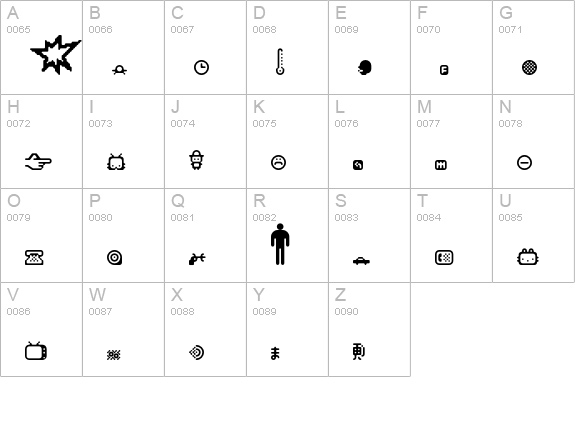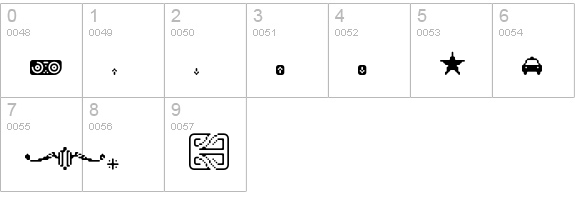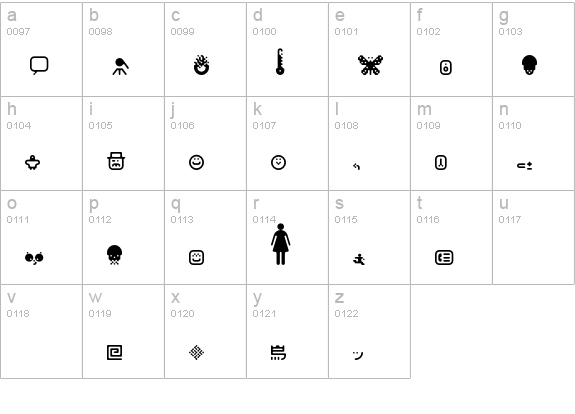
Matica-Dingbats Font Details
Introducing Matica-Dingbats, a captivating and versatile font that will add an element of playfulness and creativity to any design project. This unique typeface combines intricate geometric shapes, whimsical patterns, and charming illustrations to create a collection of visually appealing dingbats. Matica-Dingbats is the perfect choice for anyone looking to add a touch of character and individuality to their designs. Whether you're designing a logo, creating a poster, or crafting a personalized greeting card, this font will undoubtedly catch the eye and leave a lasting impression. One of the most remarkable features of Matica-Dingbats is its remarkable ability to convey a wide range of emotions and concepts through its diverse set of symbols. From cheerful smiley faces and quirky animals to elegant floral motifs and trendy icons, this font offers an extensive range of elements to choose from, ensuring that you find the perfect visual representation for any occasion. What makes Matica-Dingbats even more appealing is that it is freely available to download at FontsMarket.com. Yes, you heard that right - this font can be yours, completely free of charge. FontsMarket.com is proud to offer this incredible font as a gift to the design community, allowing designers of all levels to access this treasure trove of creativity and inspiration. So why wait? Unlock your imagination and elevate your designs with Matica-Dingbats. Download this font today and let your creativity soar to new heights. The possibilities are endless with Matica-Dingbats - the font that sets your designs free.